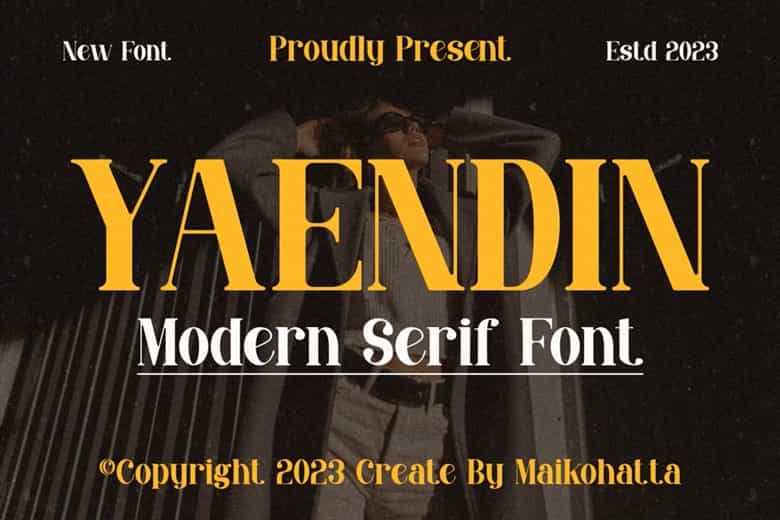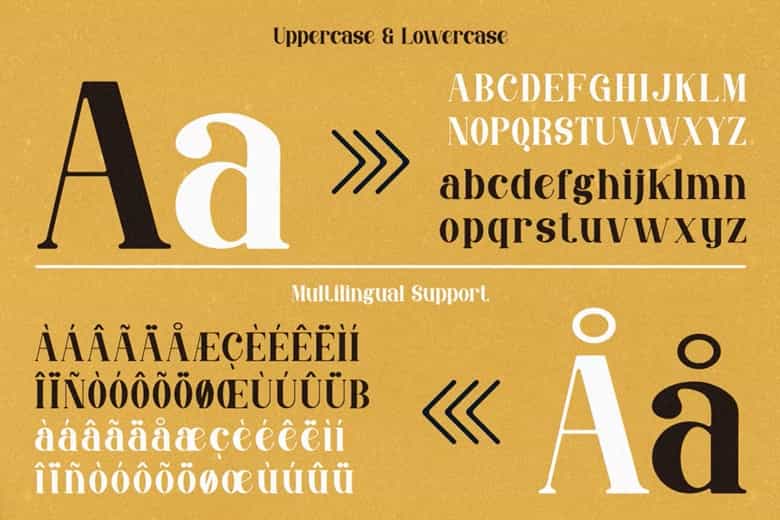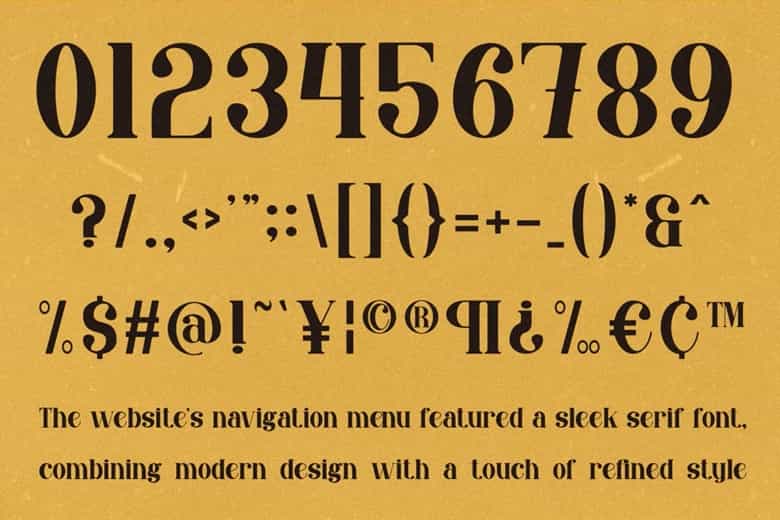
Discover Yaendin Font, part of the Serif collection—a versatile and unique font perfect for adding a personal touch to your projects. Download it for free and enjoy crafting designs with style, from invitations to social media posts. This font is available exclusively for personal use, giving you the freedom to create without limits. Unlock your creativity with Yaendin Font today!
The level of its stroke thickness and its thinness is balanced to provide appealing and readable images in Yaendin font. It is a bold contrast of thick and thin lines that often serve as a characteristic feature of this modern serif style offering the touch that is neither too loud yet has a certain distinctive accent.